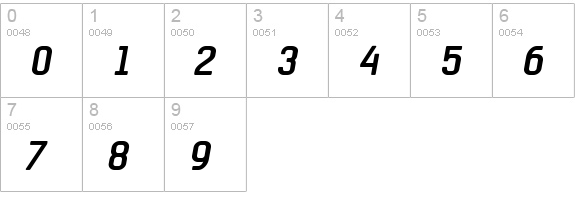
BetaSans-BoldOblique is a dynamic and modern font that exudes confidence and creativity. Its bold and oblique design makes a strong statement while maintaining a sense of elegance and sophistication. This versatile typeface is perfect for adding a touch of flair to any project, whether it be for branding, advertising, or graphic design. What's even better is that BetaSans-BoldOblique is available for free download at FontsMarket.com. This means you can easily access this unique font and incorporate it into your designs without any hassle. Don't miss out on the opportunity to enhance your creations with the bold and stylish BetaSans-BoldOblique font today!